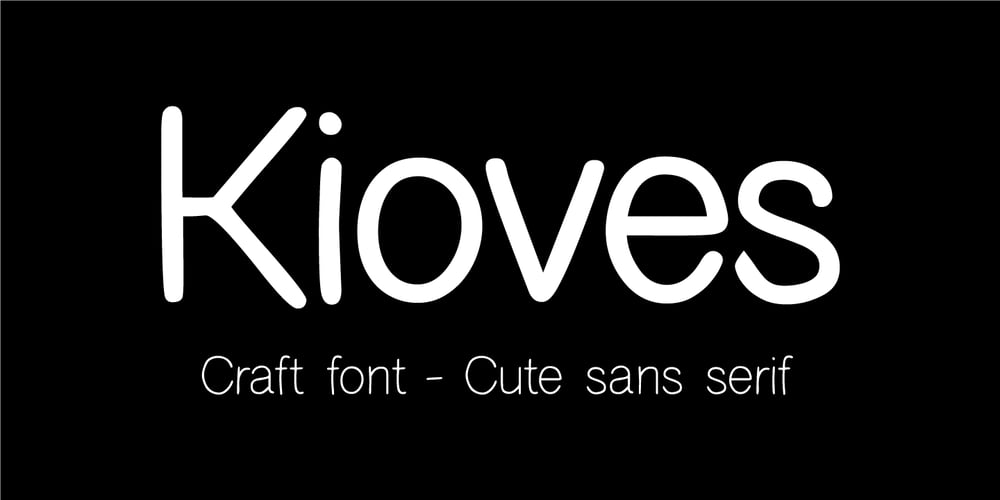
Kioves Font Family was designed by Siti Saribanon Nurjannah and published by Cititype. Kioves contains 3 styles and family package options. Kioves is a fancy, contemporary sans serif font. With its neat and beautiful arrangement of letters, this typeface will look outstanding in both formal and non-formal designs.